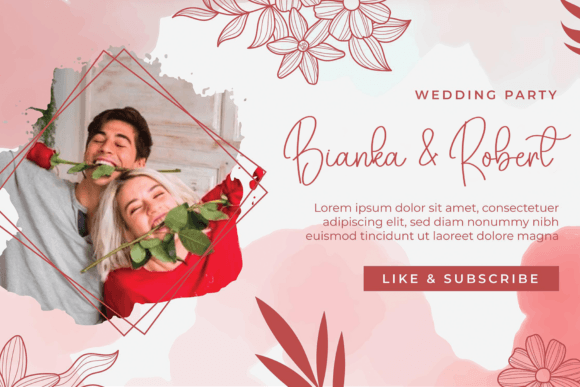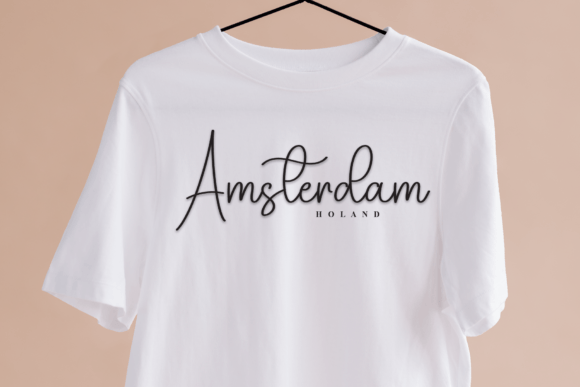
Beauty Gingerbread Font Font
Beauty Gingerbread is a stylish and incredibly elegant script font. It looks stunning on wedding invitations, thank you cards, quotes, greeting cards, logos, business cards and every other design which needs a handwritten touch.